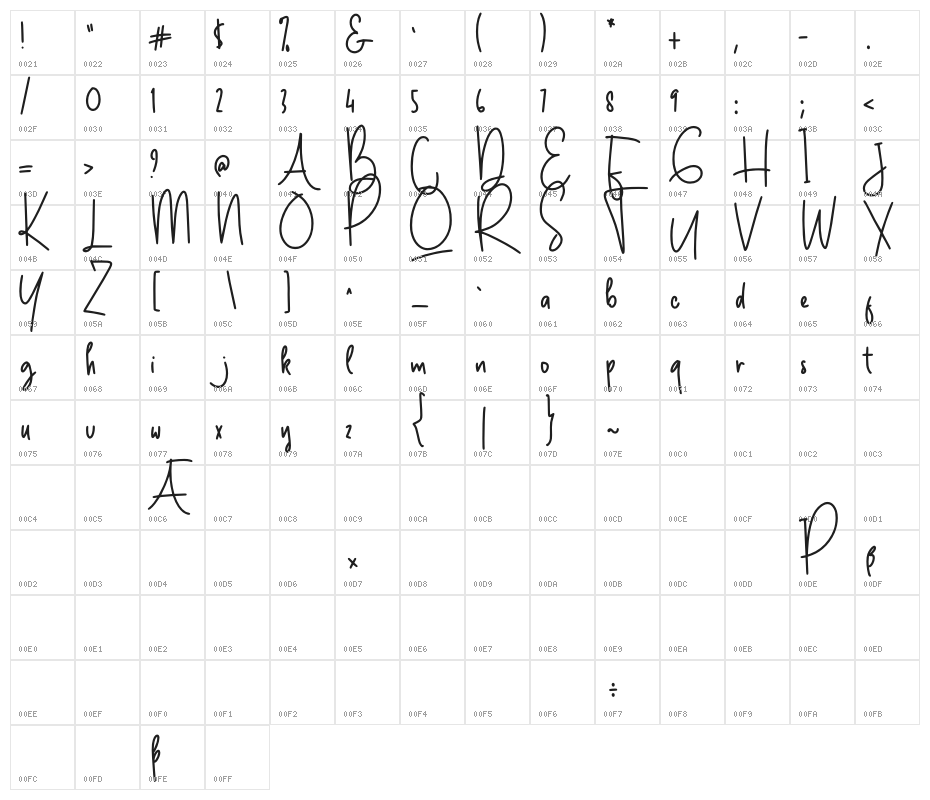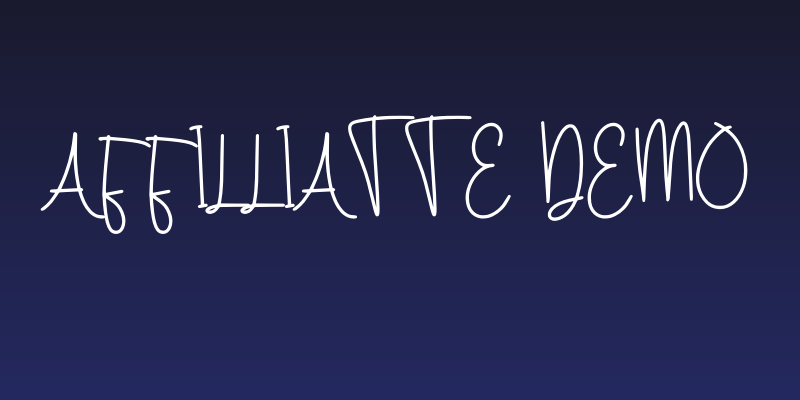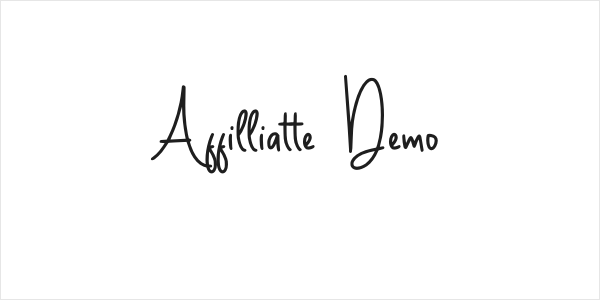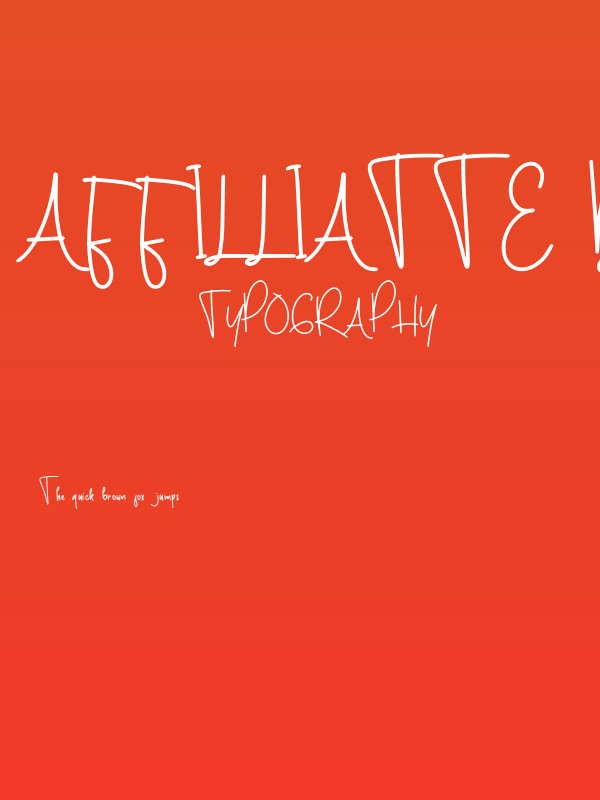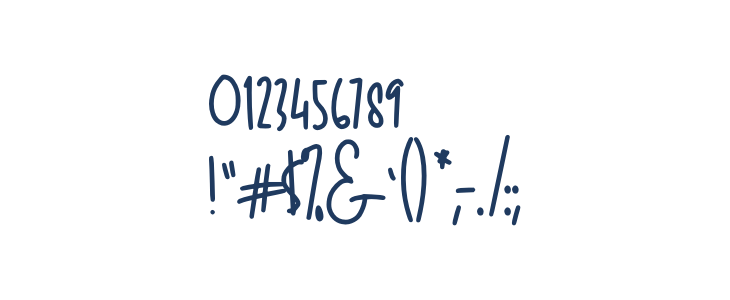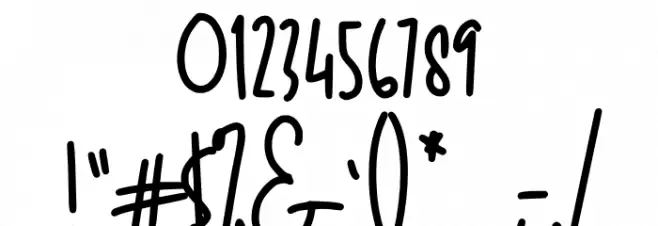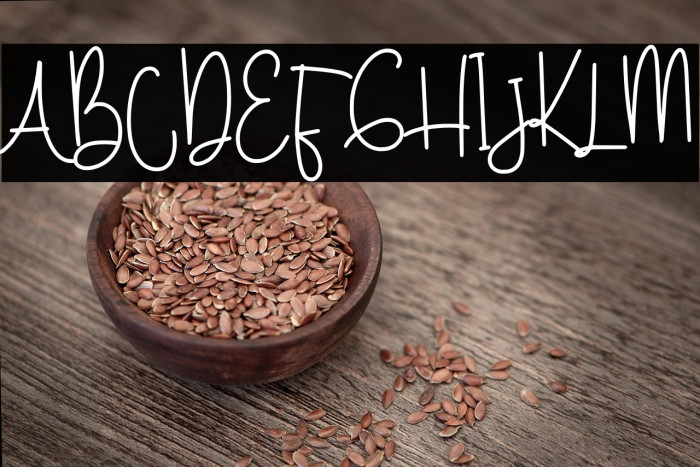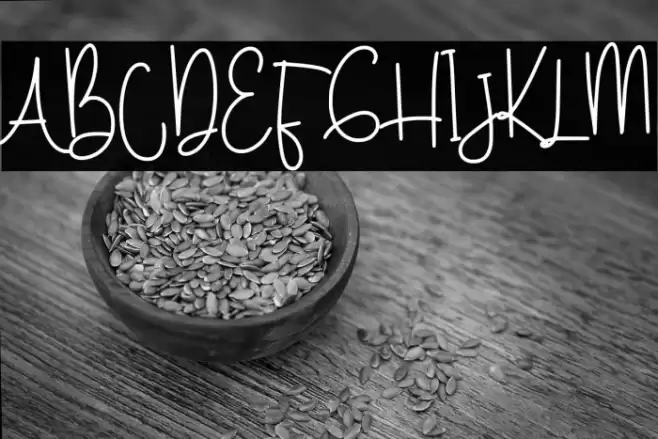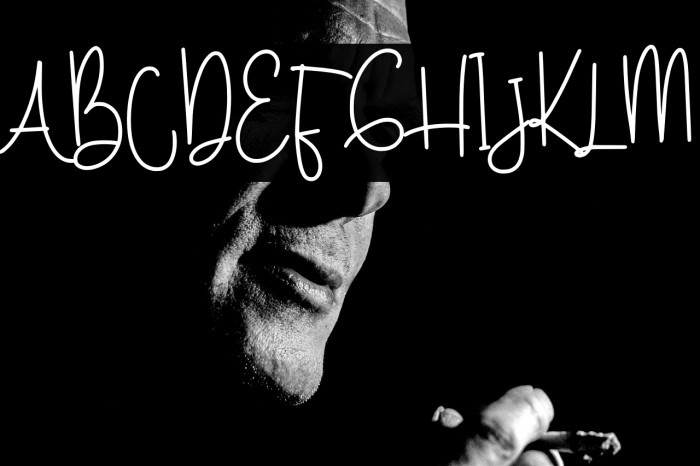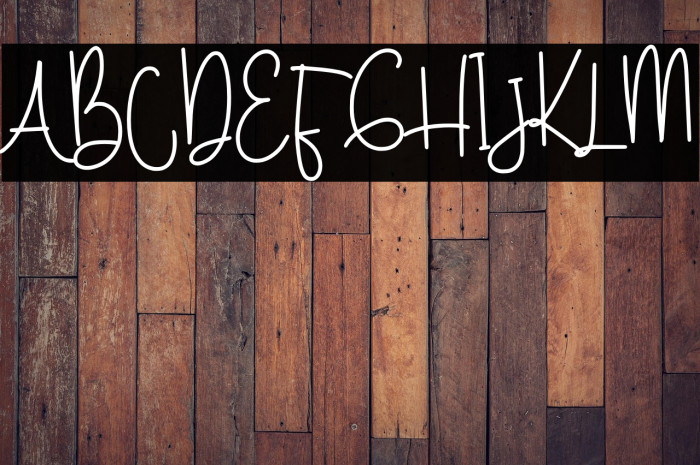
Affilliatte Demo Font
This font exudes a playful and casual handwritten style, characterized by its loose and flowing letterforms. The uppercase letters are tall and narrow, with a slight slant that adds to the informal feel. The lowercase letters are more rounded and connected, giving a sense of continuity and fluidity. The numbers and special characters maintain this whimsical aesthetic, making the font suitable for projects that require a personal touch. The overall appearance is dynamic and energetic, perfect for creative and informal applications.
| Proposed Projects | Ideal for greeting cards, invitations, personal branding, and creative projects that require a friendly and informal touch. |